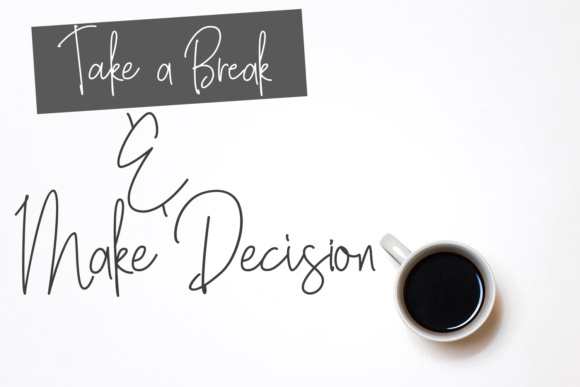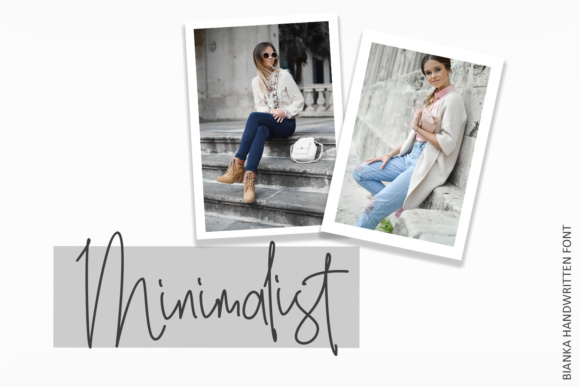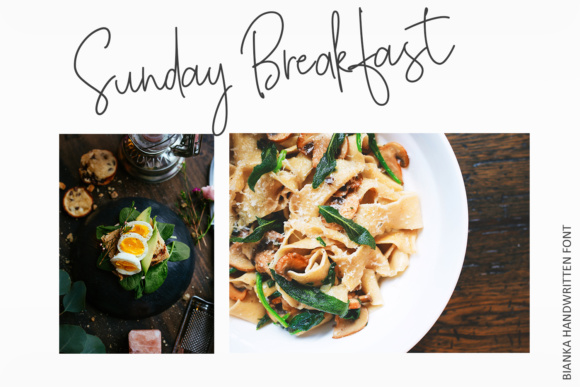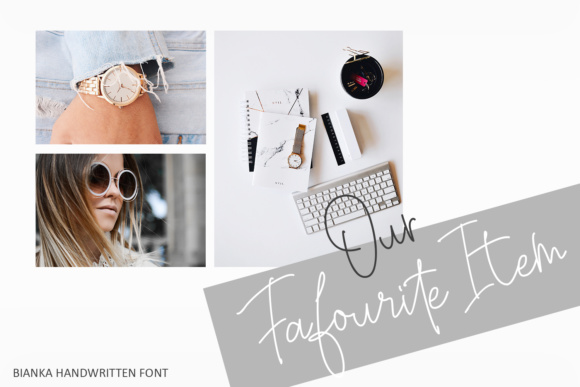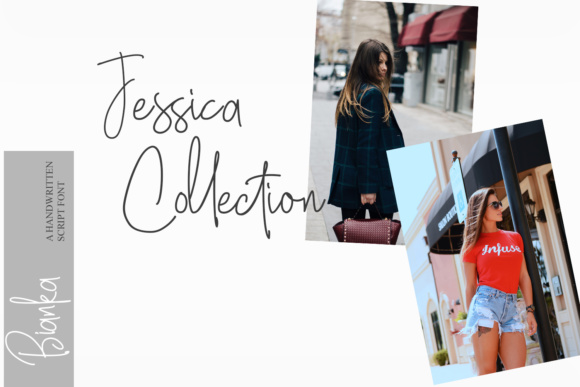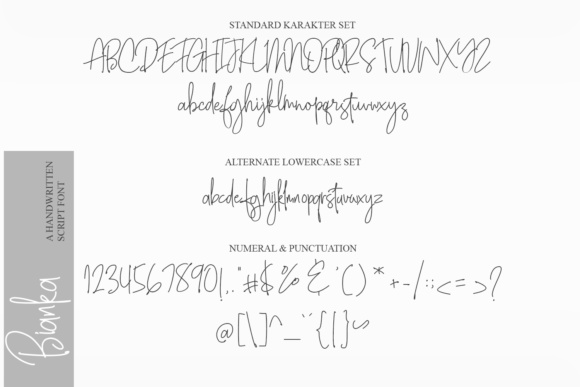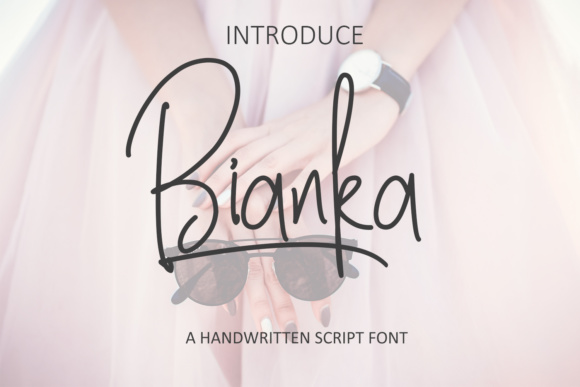
Bianka Font: Elevate Your Designs with Elegance and Style
In the world of typography, a font can make or break a design. For those in the fashion and stylish industries, finding the perfect font that exudes elegance and sophistication is crucial. This is where Bianka Font comes into play – a stunning monoline font designed to add a touch of style and refinement to your projects.
What is Bianka Font?
Bianka is a beautiful, handwritten cursive font that boasts a simple yet sophisticated design. Its monoline structure gives it a clean and modern look, making it an ideal choice for designers and crafters looking to add a touch of elegance to their work. Whether you’re creating a fashion brand, crafting a stylish logo, or designing an invitation, Bianka Font is the perfect choice.
Key Features of Bianka Font
• Monoline Design: Bianka’s monoline structure gives it a sleek and modern look that’s perfect for fashion and stylish designs.
• Handwritten Cursive: The font’s handwritten cursive style adds a touch of elegance and sophistication to any project.
• Simple yet Stylish: Bianka’s simple design makes it easy to read and versatile for various applications.
• Highly Versatile: Use Bianka Font for logos, branding, invitations, packaging, and more.
Use Cases for Bianka Font
Bianka Font is an incredibly versatile font that can be used in a variety of applications. Here are some use cases to get you started:
• Fashion Branding: Use Bianka Font to create stunning fashion logos, labels, and branding materials.
• Invitations and Stationery: Add a touch of elegance to your invitations, greeting cards, and stationery with Bianka Font.
• Packaging Design: Use Bianka Font to create stylish and eye-catching packaging designs for your products.
• Social Media Graphics: Elevate your social media graphics with Bianka Font and make your content stand out.
Why Choose Bianka Font?
With so many fonts available, why choose Bianka Font? Here are a few reasons why Bianka stands out:
• Unique and Exclusive: Bianka Font offers a unique and exclusive design that’s sure to make your projects stand out.
• Elegant and Sophisticated: The font’s elegant and sophisticated design makes it perfect for high-end fashion and stylish industries.
• Easy to Read: Bianka Font is easy to read, making it perfect for body text and captions.
• High-Quality Design: The font is designed with high-quality craftsmanship, ensuring a professional finish.
Tips for Using Bianka Font
To get the most out of Bianka Font, here are some tips to keep in mind:
• Pair with Bold Fonts: Pair Bianka Font with bold fonts for a striking contrast.
• Use for Headings and Titles: Use Bianka Font for headings and titles to add a touch of elegance.
• Experiment with Colors: Experiment with different colors to find the perfect match for your design.
• Keep it Simple: Keep your design simple and clean to let Bianka Font shine.
Bianka Font is a stunning monoline font that’s perfect for designers and crafters looking to add a touch of elegance and sophistication to their projects. With its simple yet stylish design, Bianka Font is ideal for use in fashion and other stylish industries. Whether you’re creating a logo, invitation, or packaging design, Bianka Font is sure to elevate your designs and make them stand out.